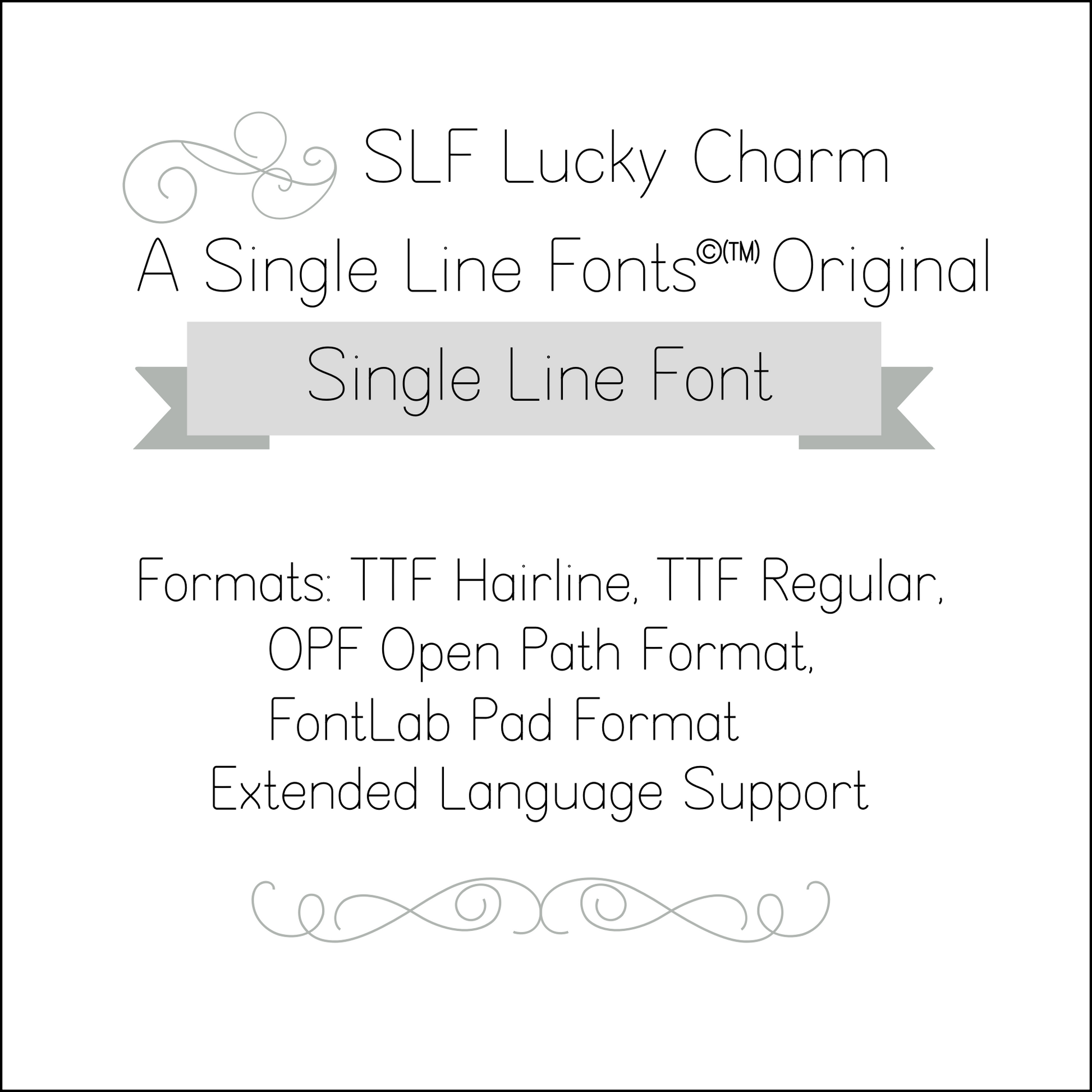
SLF Lucky Charm – Single Line Print Font for Engraving & Crafting
SLF Lucky Charm is a friendly, playful single line print font with cheerful letterforms that brighten creative projects. Its clean, monoline style works beautifully for engraving, scoring, sketch pen tools, CNC routing, and casual craft designs. This font is great for cards, labels, signage, decor, personalized gifts, and seasonal projects.
This monoline font includes a complete character set with uppercase and lowercase letters, numbers, punctuation, symbols, and accented characters for multilingual support.